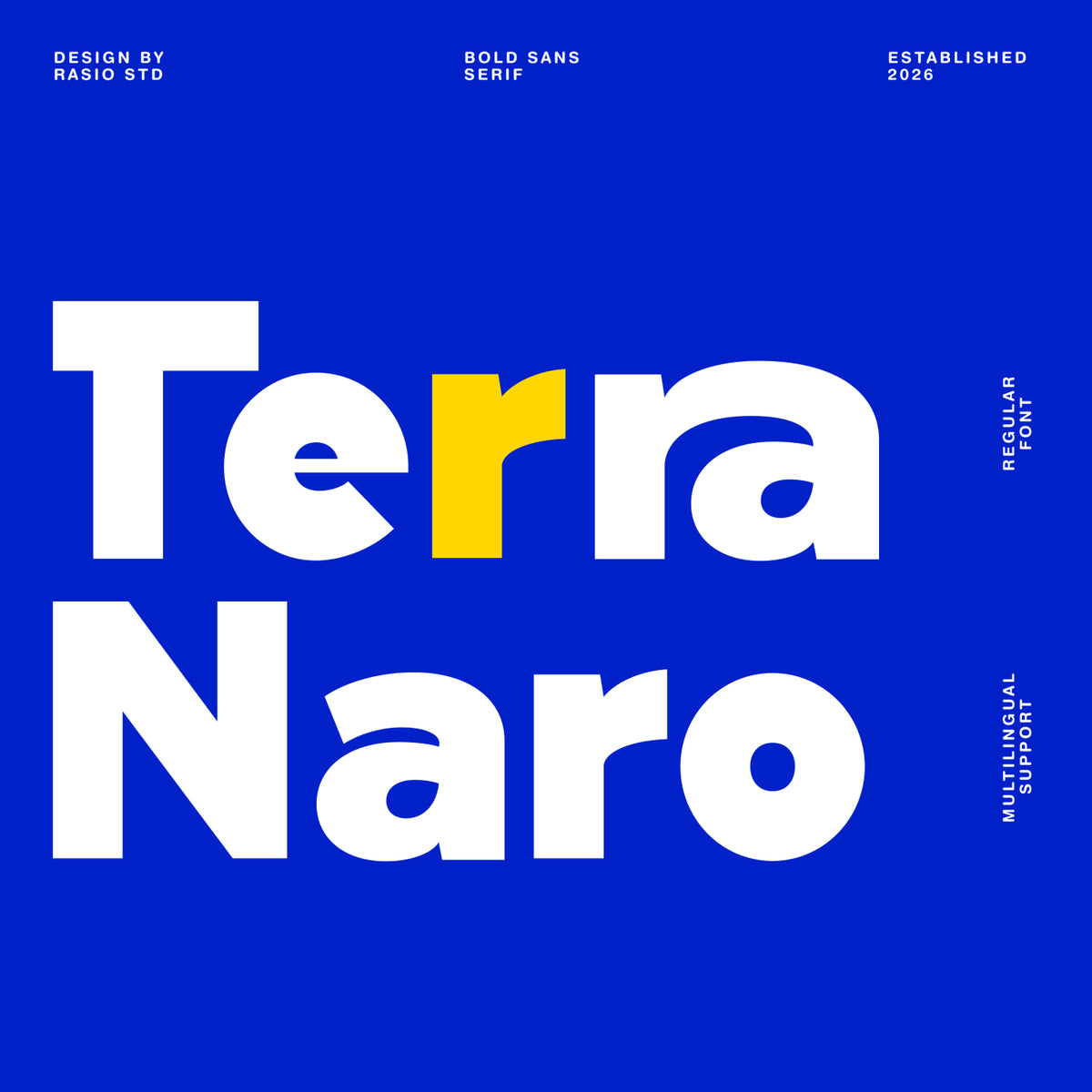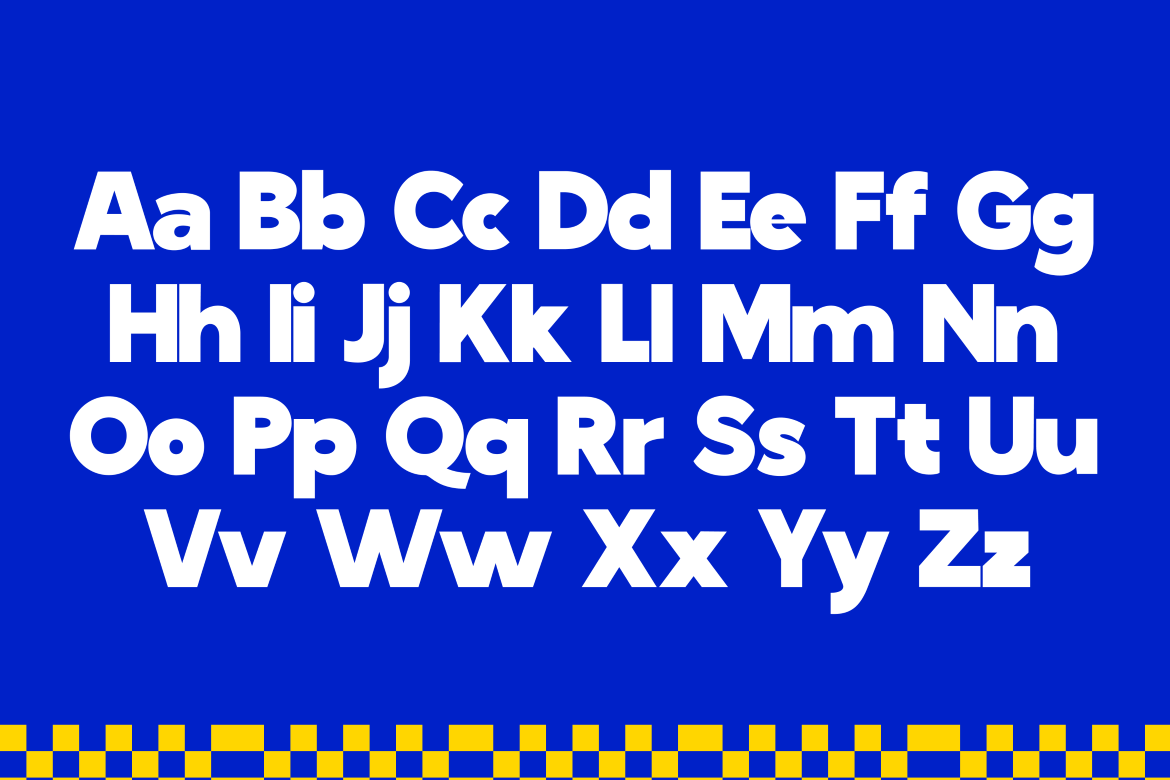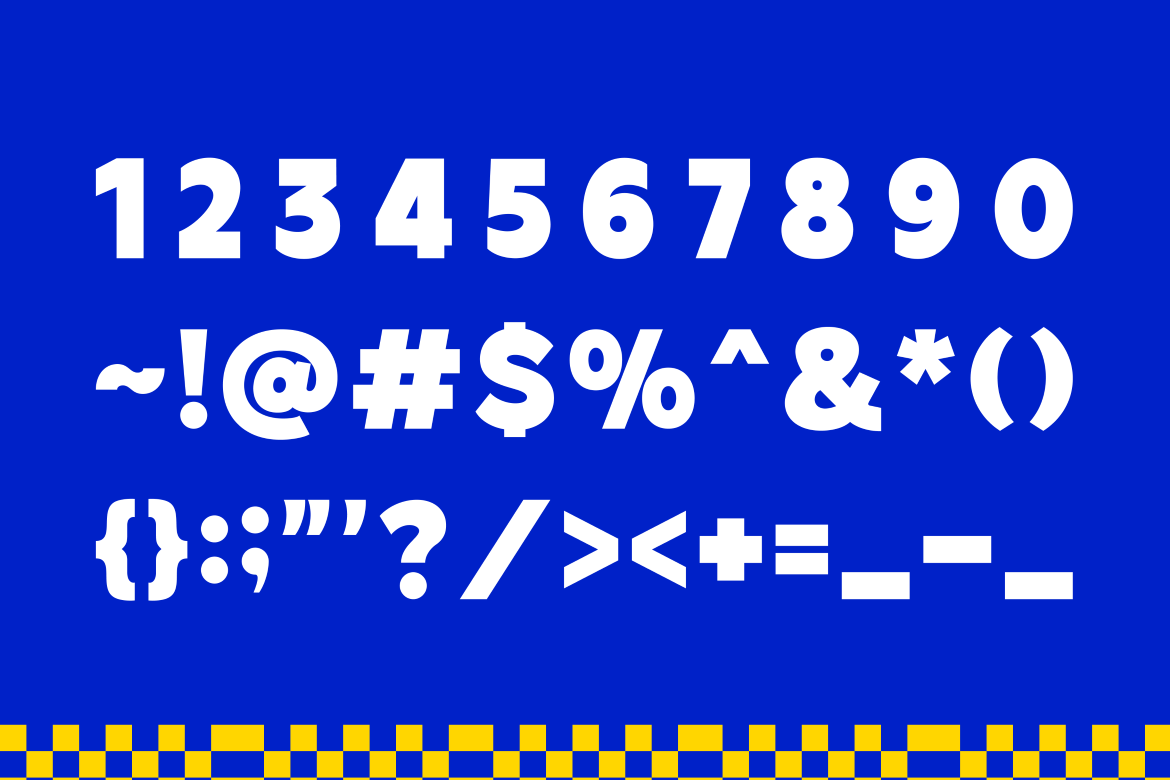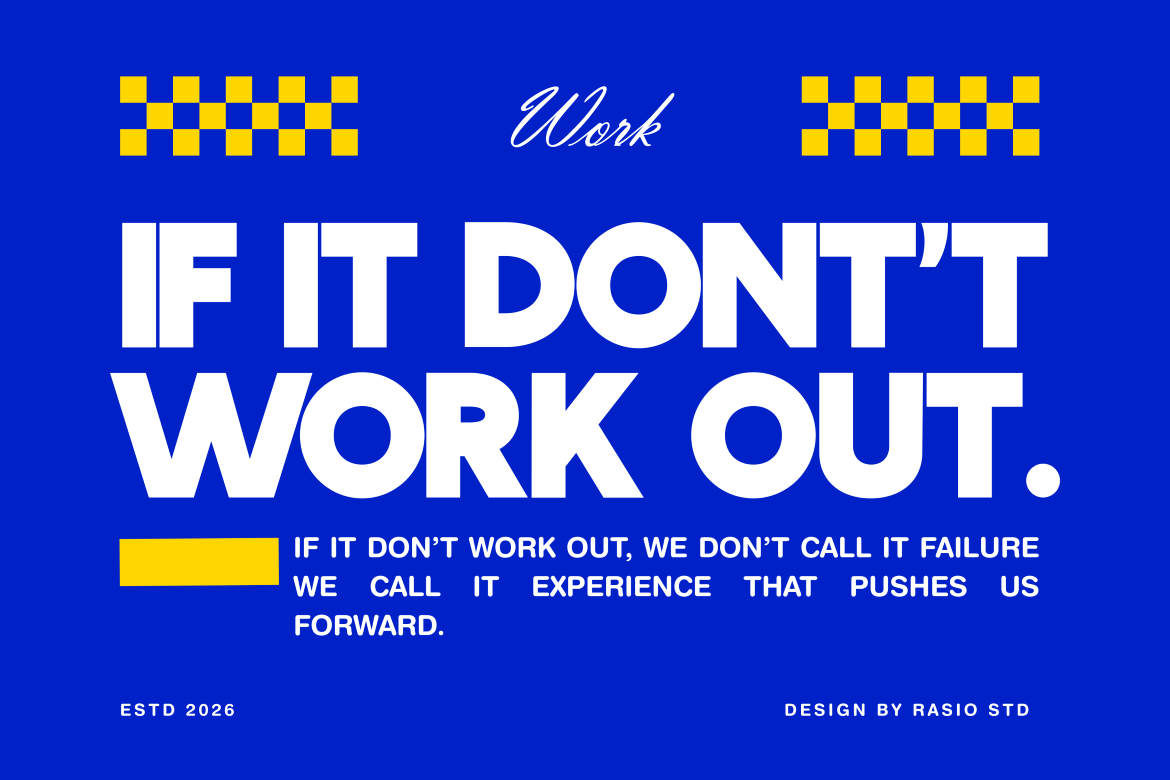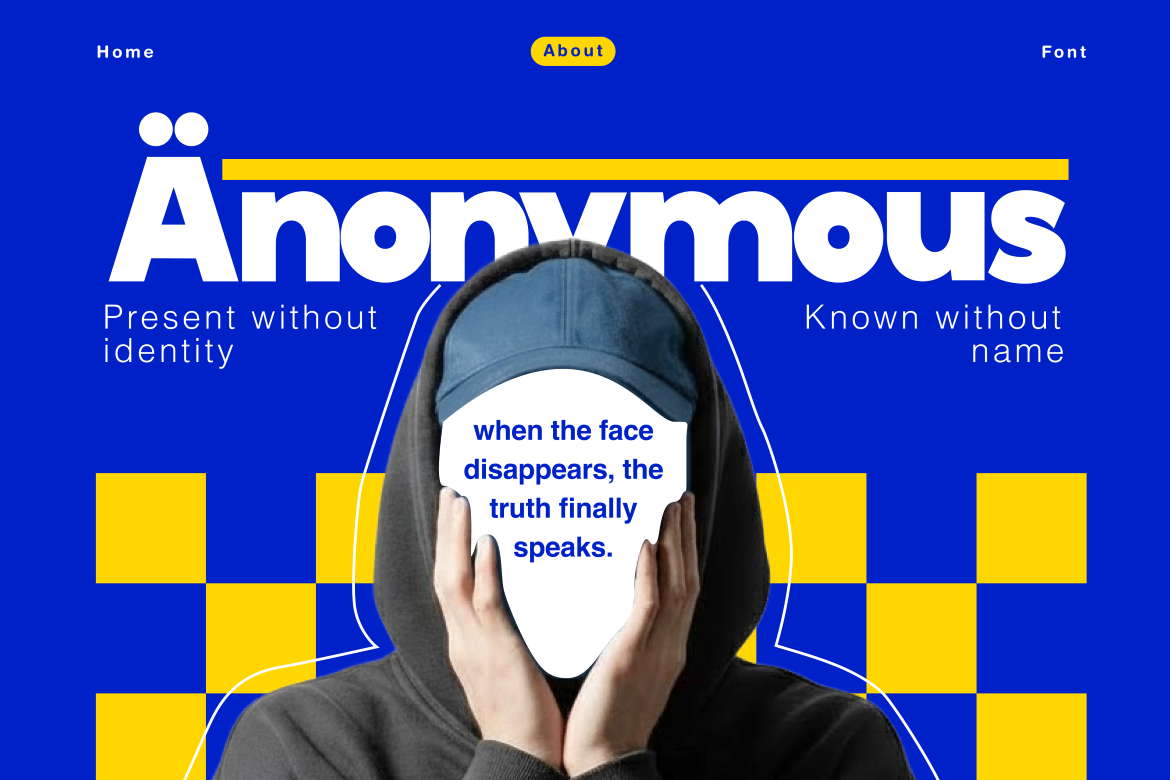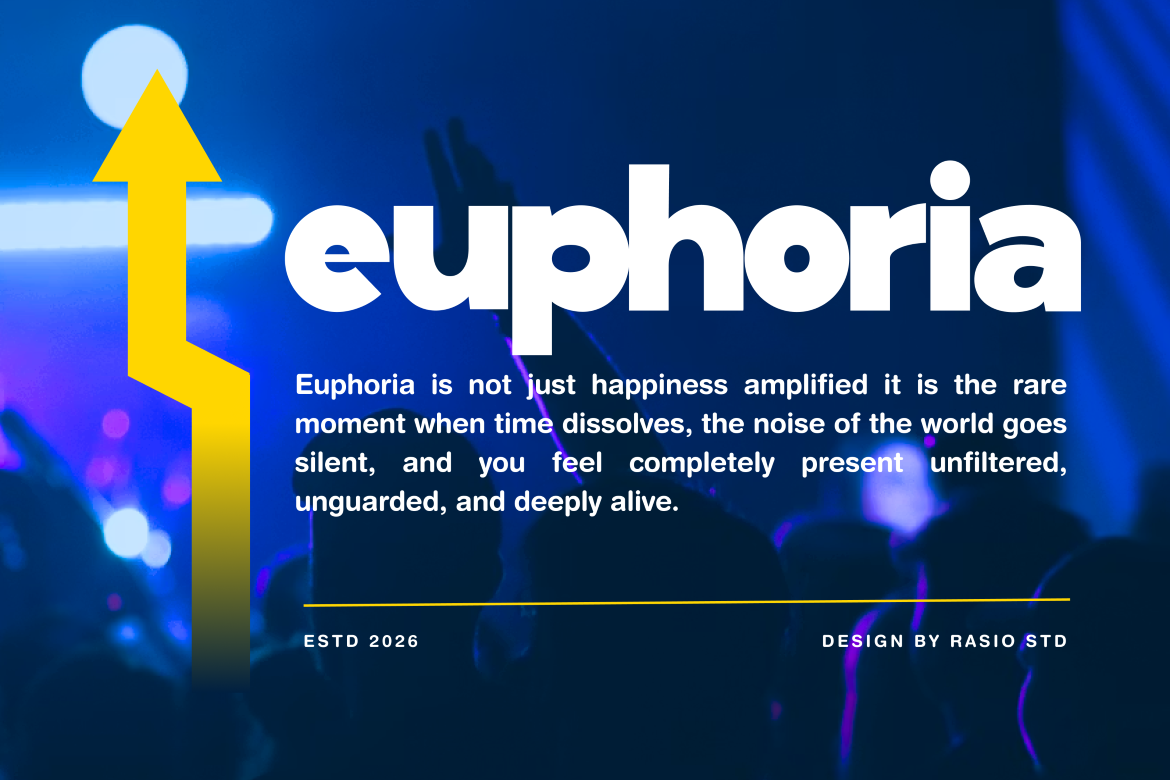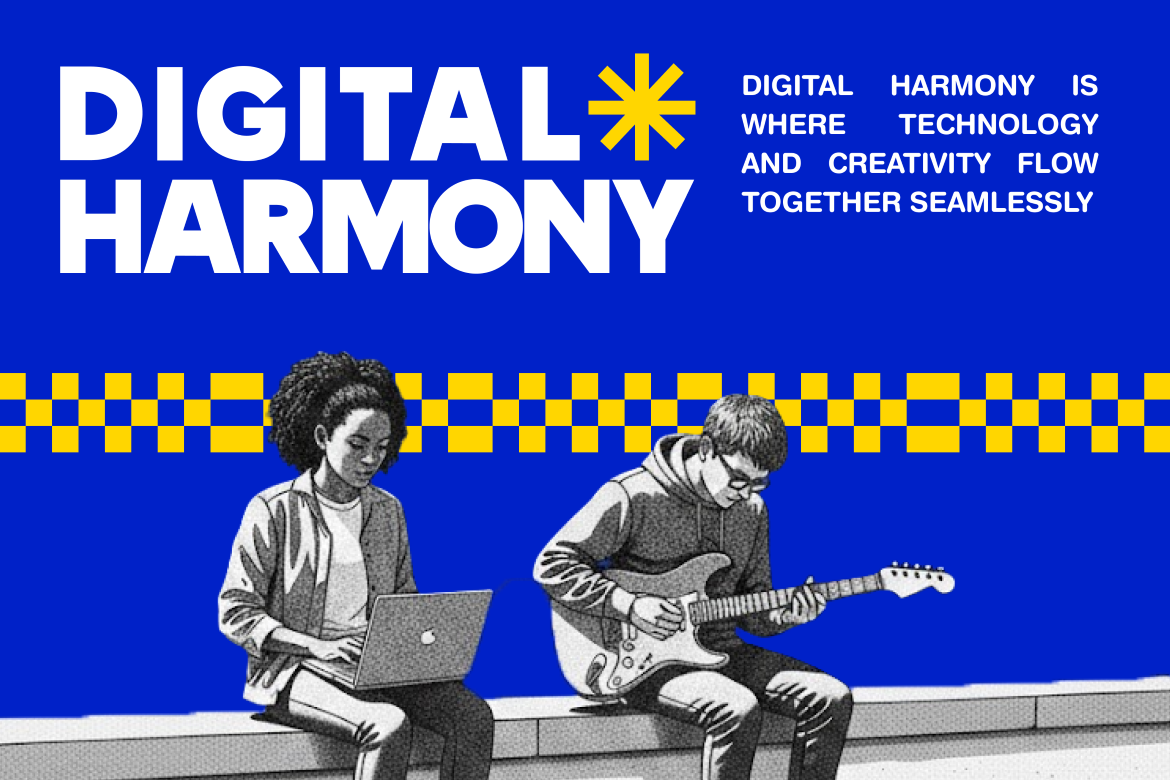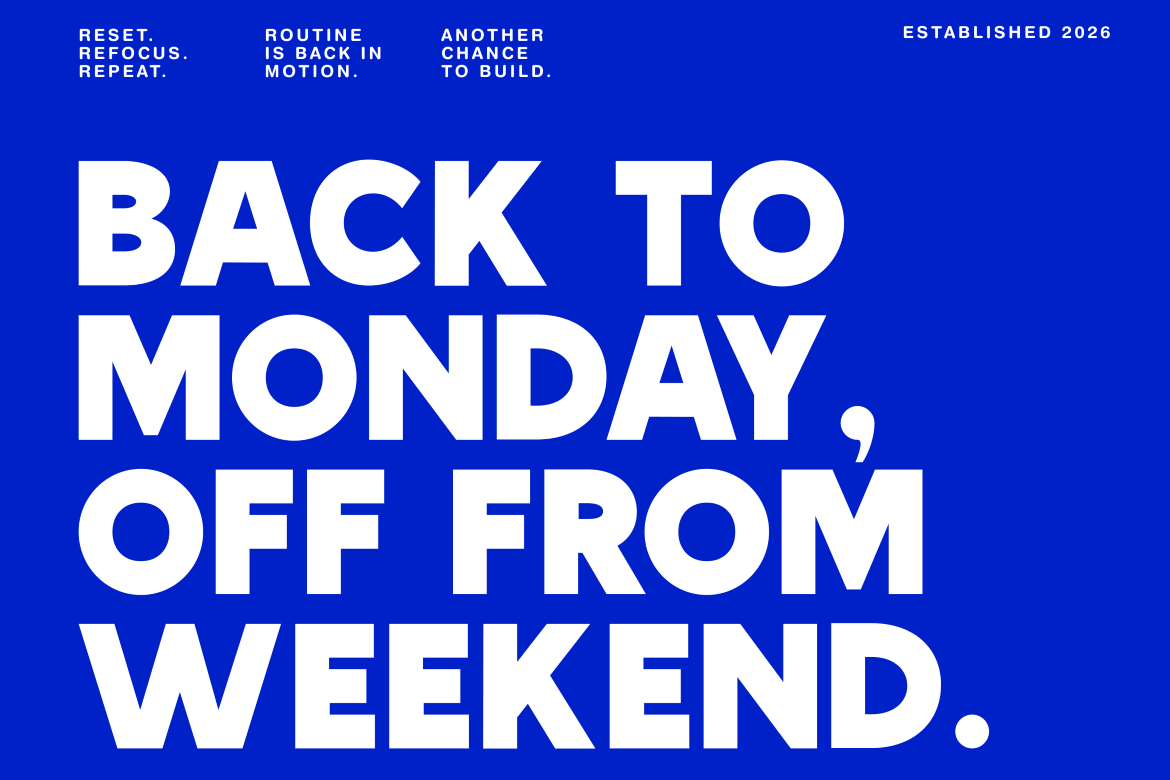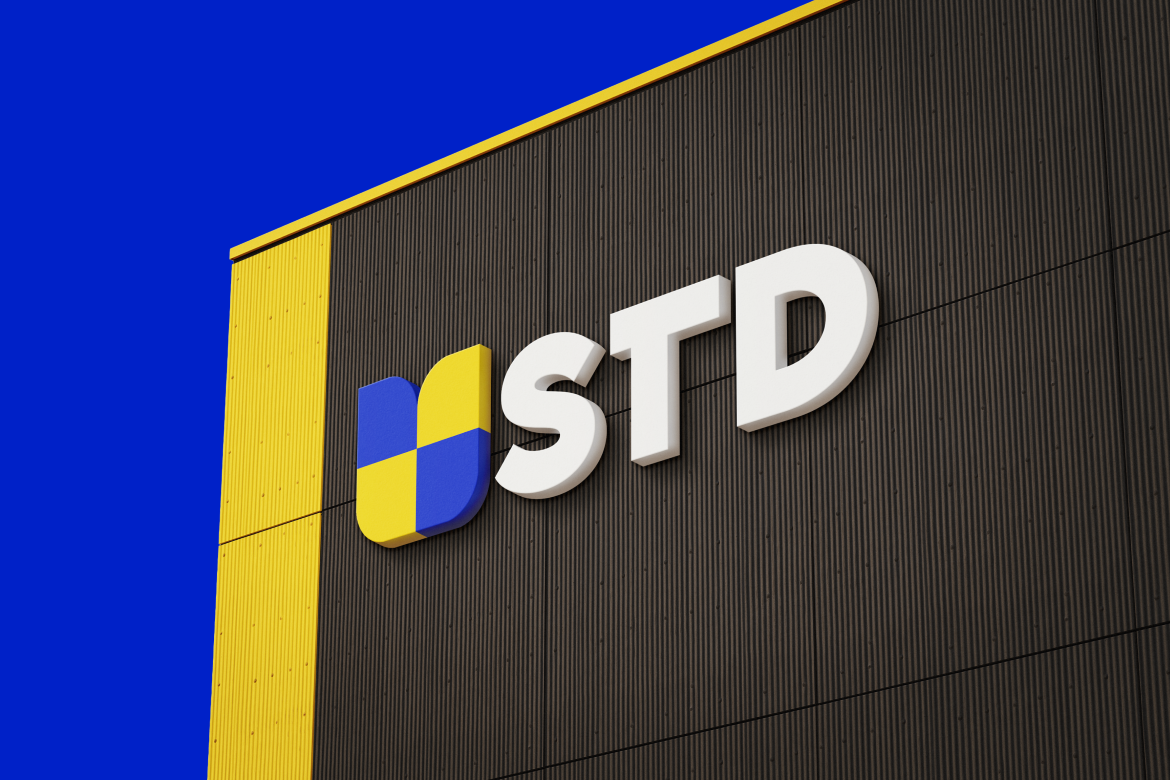
Terra Naro Bold Sans Serif Font
Terra Naro is a bold sans serif font with a modern, clean structure designed to make a striking impact. Its geometric shape and sharp contrast give it a contemporary and versatile edge, perfect for digital and print environments. This font includes uppercase and lowercase characters, punctuation, numerals, and multilingual support. Ideal for headlines, branding projects, posters, advertising, UI/UX interfaces, and editorial design.
Relevance and Use Cases is perfect for creatives and professionals needing a bold and confident typeface for high-visibility design. It’s ideal for use in branding, corporate identities, user interfaces, mobile apps, web headers, posters, editorial layouts, and marketing collateral. Its versatility allows it to adapt to both tech-driven projects and stylish modern aesthetics.
Terra Naro is a bold sans serif font featuring a geometric structure with sharp contrast, available in OTF, TTF, and WOFF formats. It includes uppercase and lowercase characters, numerals, punctuation, and multilingual support.